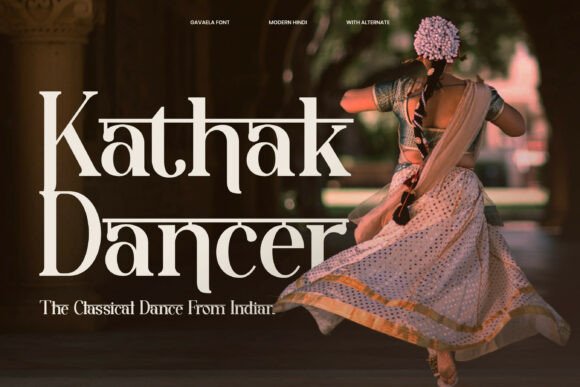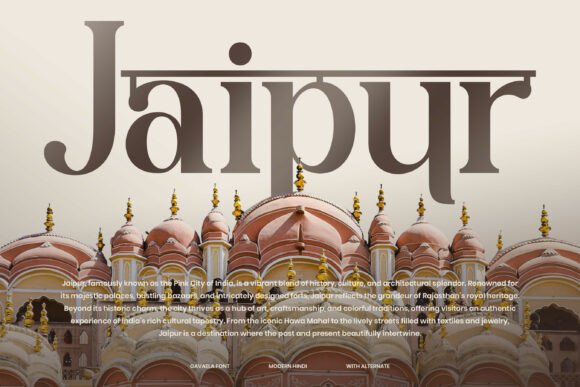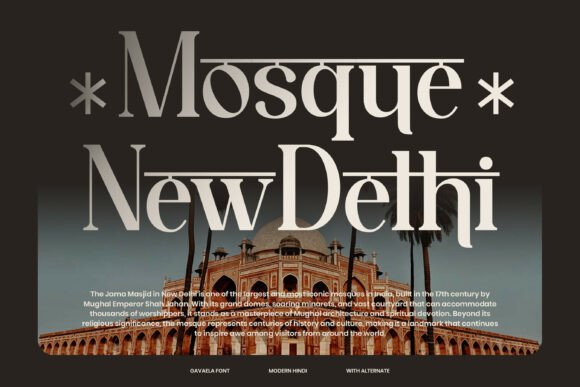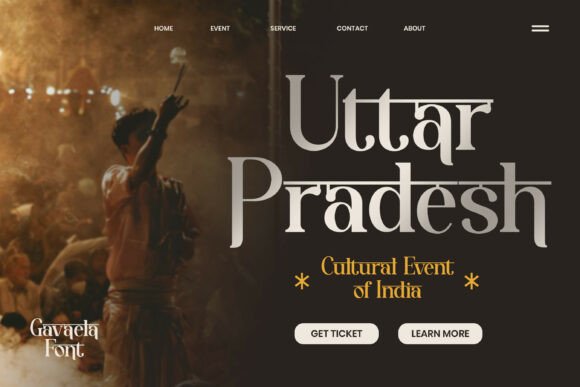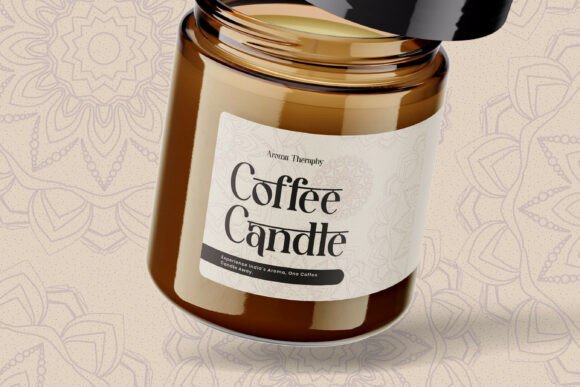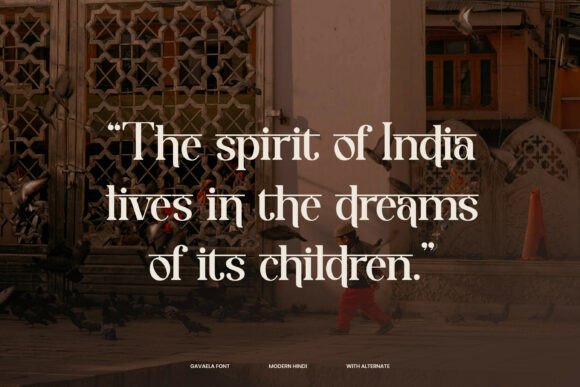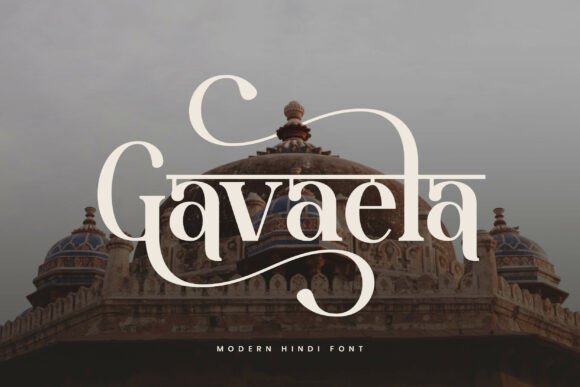
Introducing Gavaela Font: A Modern Hindi-Inspired Display Font
In the world of typography, fonts play a crucial role in conveying the tone and personality of a brand or design project. For designers and crafters looking to add a touch of cultural heritage and modern sophistication to their work, Gavaela Font is an excellent choice. This modern Hindi-inspired display font seamlessly blends traditional South Asian aesthetics with a fresh contemporary touch, making it perfect for a wide range of design applications.
The Inspiration Behind Gavaela
Gavaela’s design is rooted in the rich cultural heritage of South Asia, particularly in the traditional typography of Hindi and other regional languages. The font’s creator aimed to capture the essence of these classic scripts while infusing them with a modern twist. The result is a font that exudes elegance, sophistication, and a deep connection to its cultural roots.
Key Features of Gavaela Font
Gavaela Font boasts several key features that make it an attractive choice for designers and crafters:
- Modern Hindi-Inspired Design: Gavaela’s design is inspired by traditional Hindi typography, making it an excellent choice for projects that require a touch of cultural authenticity.
- Display Font: Gavaela is a display font, perfect for headlines, titles, and other prominent text elements.
- Graceful Curves and Extended Swashes: The font features beautiful, flowing curves and extended swashes that add an artistic and elegant flair to any design.
- Balanced Letterforms: Gavaela’s letterforms are carefully crafted to ensure balance and harmony, making it easy to read and visually appealing.
Design Applications for Gavaela Font
Gavaela Font is an incredibly versatile font that can be used in a wide range of design applications, including:
- Branding: Use Gavaela to create unique and memorable brand identities that reflect your cultural heritage and values.
- Logo Design: The font’s elegant and sophisticated design makes it perfect for logo design, particularly for businesses that want to convey a sense of tradition and modernity.
- Packaging: Add a touch of cultural flair to your product packaging with Gavaela Font, making your products stand out on store shelves.
- Invitations and Posters: Use Gavaela to create stunning invitations, posters, and other visual materials that require a touch of elegance and sophistication.
- Editorial Layouts: The font is also suitable for editorial layouts, such as magazine articles, blog posts, and other written content.
Why Choose Gavaela Font?
With so many fonts available, why choose Gavaela Font for your design projects? Here are a few compelling reasons:
- Unique Cultural Heritage: Gavaela Font offers a unique blend of traditional South Asian aesthetics and modern sophistication, making it an excellent choice for designers looking to add a touch of cultural authenticity to their work.
- High Versatility: The font’s versatility makes it suitable for a wide range of design applications, from branding and logo design to packaging and editorial layouts.
- Elegant and Sophisticated Design: Gavaela’s elegant and sophisticated design ensures that your design projects will stand out and leave a lasting impression.
In conclusion, Gavaela Font is an exceptional modern Hindi-inspired display font that offers a perfect blend of cultural heritage and modern sophistication. With its graceful curves, extended swashes, and balanced letterforms, Gavaela is an excellent choice for designers and crafters looking to add an artistic and elegant flair to their design projects. Whether you’re working on branding, logo design, packaging, invitations, posters, or editorial layouts, Gavaela Font is sure to impress.